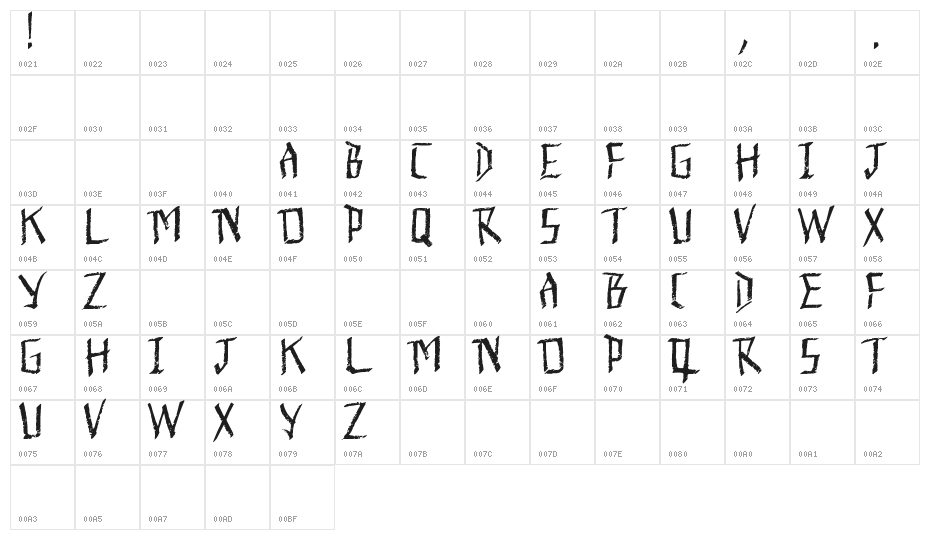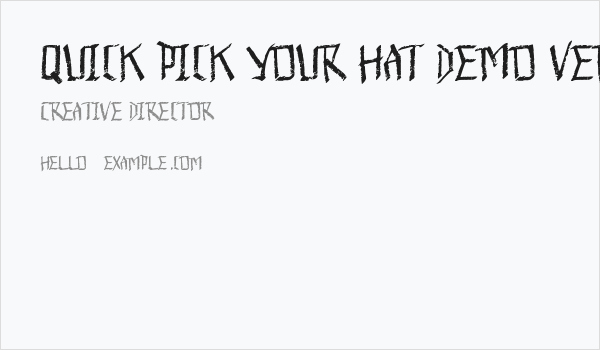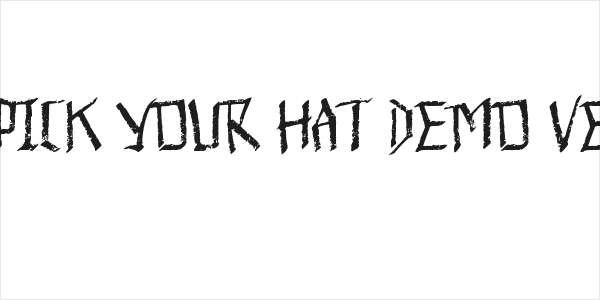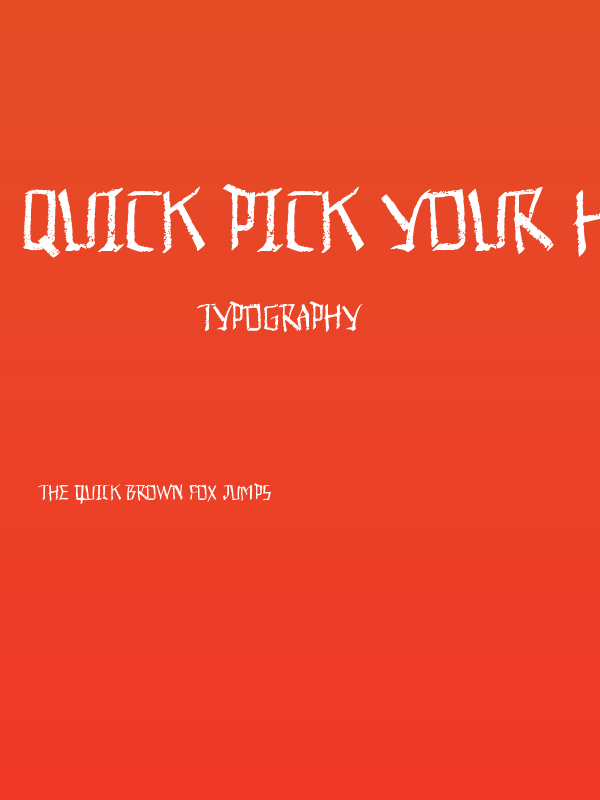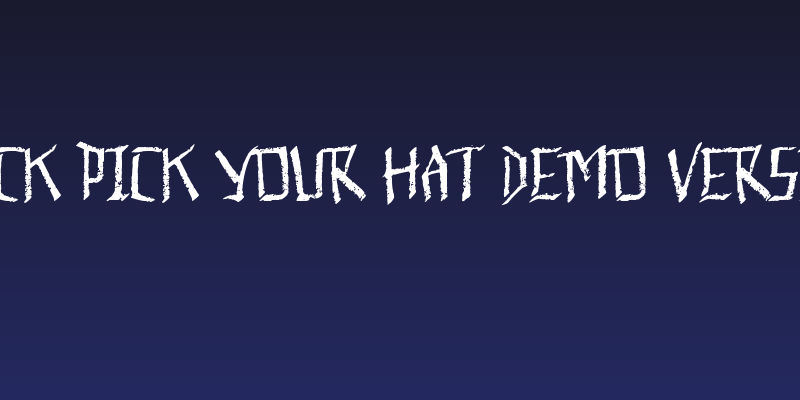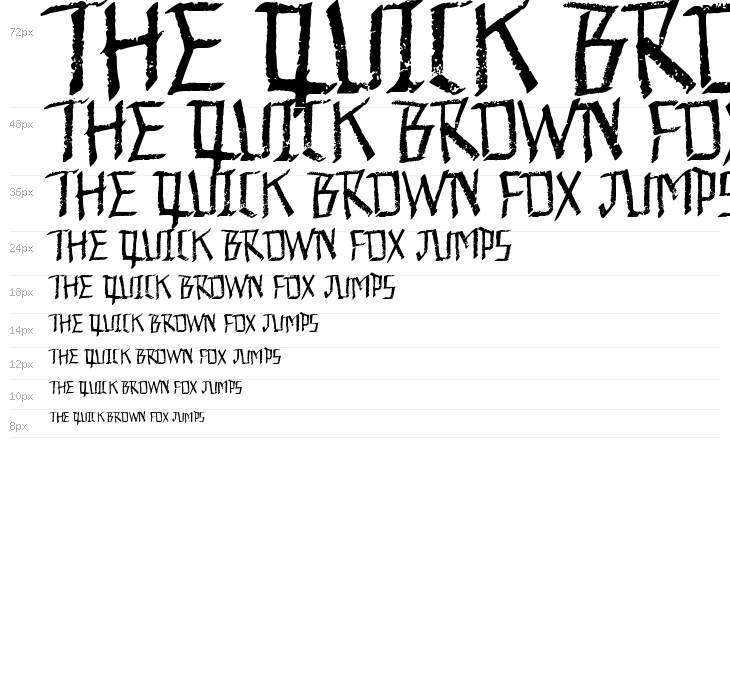
Quick Pick Your Hat Demo Version Font
Quick Pick Your Hat Demo Version Description
This font features a rugged, distressed style with a hand-drawn appearance. The characters are bold and angular, with uneven edges that give it a raw, organic feel. The uppercase letters are particularly striking, with sharp, pointed serifs and a slightly condensed form. The texture of the strokes suggests a brush or pen that has been used with varying pressure, creating a dynamic and energetic look. This font is ideal for projects that require a bold statement or a gritty, urban aesthetic. It captures attention with its unique, artistic flair.